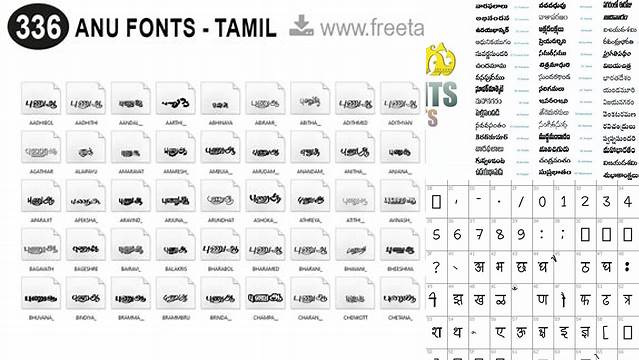
Understanding the ANU 6.0 Font
The ANU 6.0 font, guys, is pretty special. It's not just another typeface; it's a carefully crafted font designed with specific purposes in mind. Think of it as a tool, and like any good tool, understanding its features and intended use is key to getting the most out of it. This font often finds its way into academic work, documentation, and projects that need a clean, readable, and professional look. What makes it stand out? Well, its clarity, legibility, and the subtle design choices that make reading long texts a breeze. The ANU 6.0 font incorporates features that enhance readability, such as optimized character spacing and distinct letterforms, reducing eye strain and improving comprehension. Before diving into the free download, it’s important to know what you’re getting. So, let's break down what makes this font tick.
Key Features of ANU 6.0
What's under the hood of the ANU 6.0 font? This font boasts a range of features that make it a solid choice for various applications. For starters, it typically includes a comprehensive character set, supporting a wide array of languages and symbols. Think of it as being multilingual, making it useful for international projects. The design emphasizes clarity and legibility, with well-defined letterforms and optimized spacing. This means that even in smaller sizes, the font remains easy to read, crucial for detailed documents and reports. Additionally, the ANU 6.0 font often comes in multiple weights (e.g., regular, bold, italic), giving you flexibility in how you present your text. These variations allow you to create emphasis and structure within your documents, making them more engaging and easier to navigate. Understanding these features helps you appreciate the font's versatility and how it can enhance your projects. The consistent design and attention to detail contribute to a polished and professional look, whether you’re writing a research paper, designing a presentation, or creating marketing materials. All in all, ANU 6.0's features make it a reliable and adaptable choice for a wide range of textual needs.